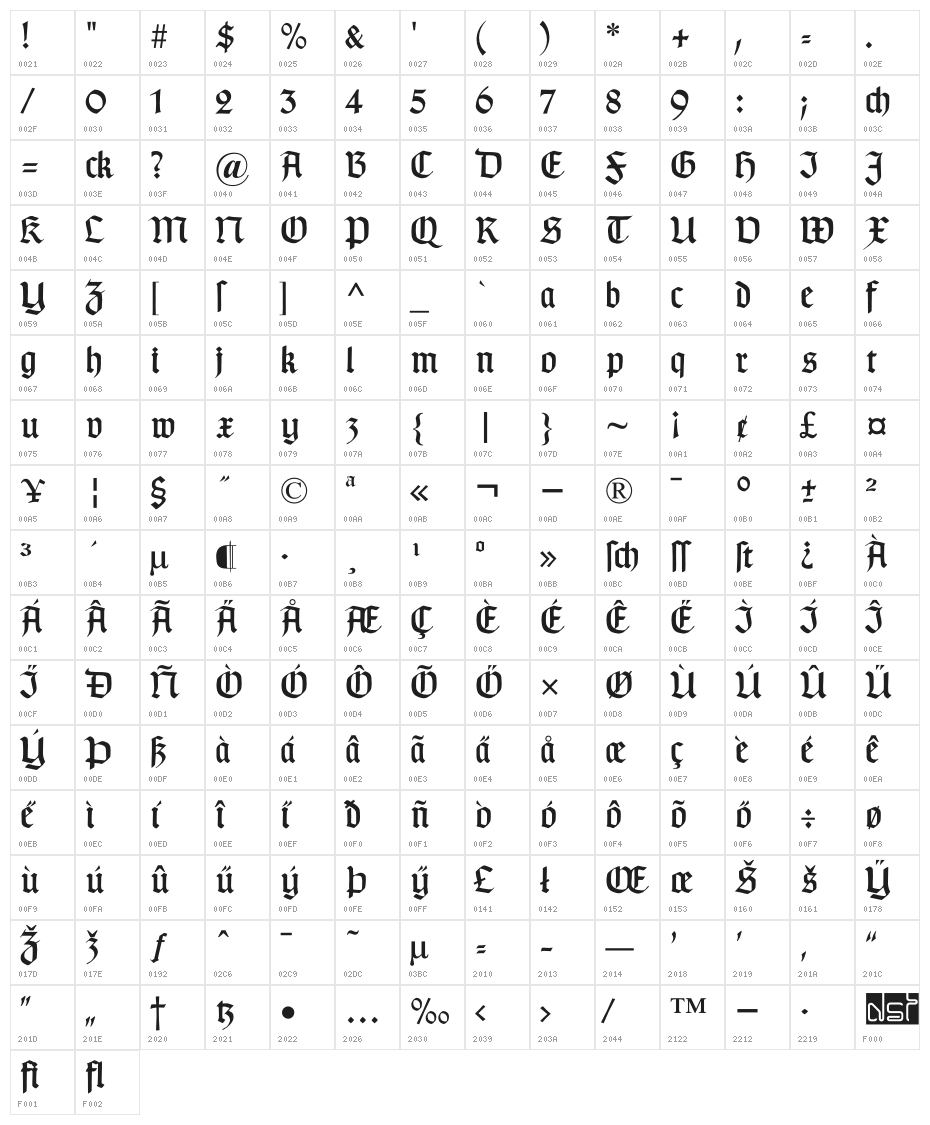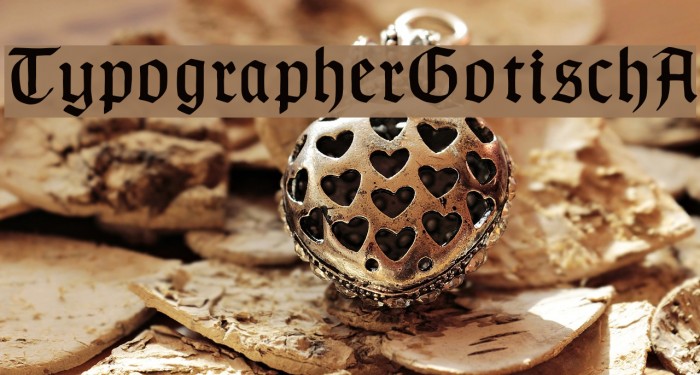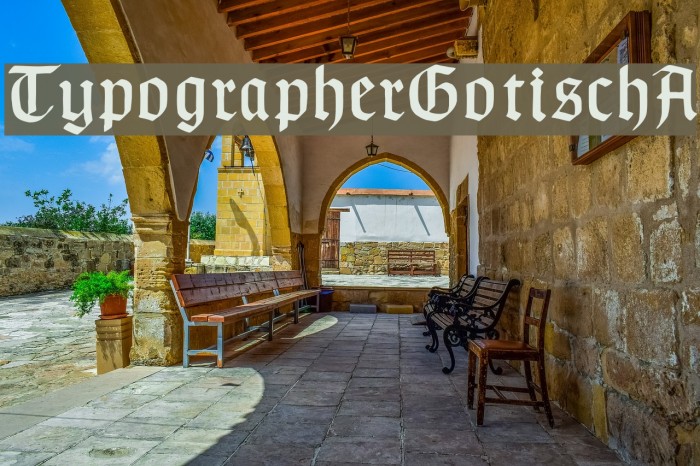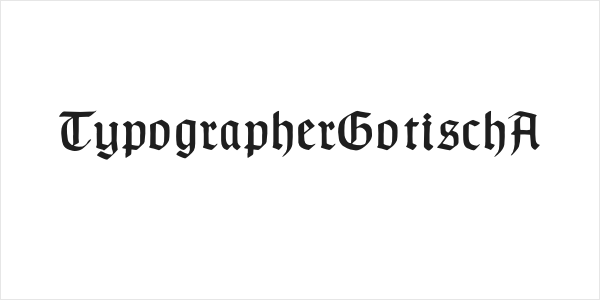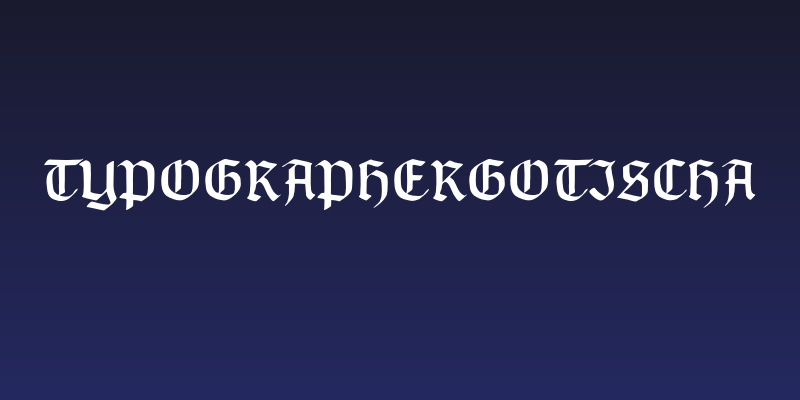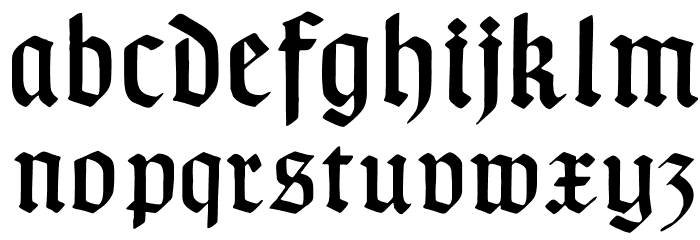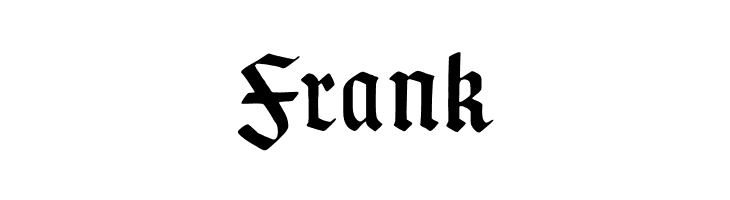
TypographerGotischA Font
TypographerGotischA Description
This font embodies the traditional characteristics of blackletter typography, featuring sharp, angular lines and intricate detailing. The uppercase letters are bold and commanding, with a distinct medieval flair that is both dramatic and ornate. The lowercase letters maintain the same stylistic elements, offering a cohesive and harmonious appearance. The numerals are equally bold, with a strong presence that complements the overall aesthetic. Special characters are designed with the same attention to detail, ensuring they integrate seamlessly with the rest of the typeface. This font is ideal for projects that require a historical or gothic touch, providing a sense of elegance and formality.
| Proposed Projects | Ideal for historical documents, gothic-themed designs, book covers, and formal invitations. |